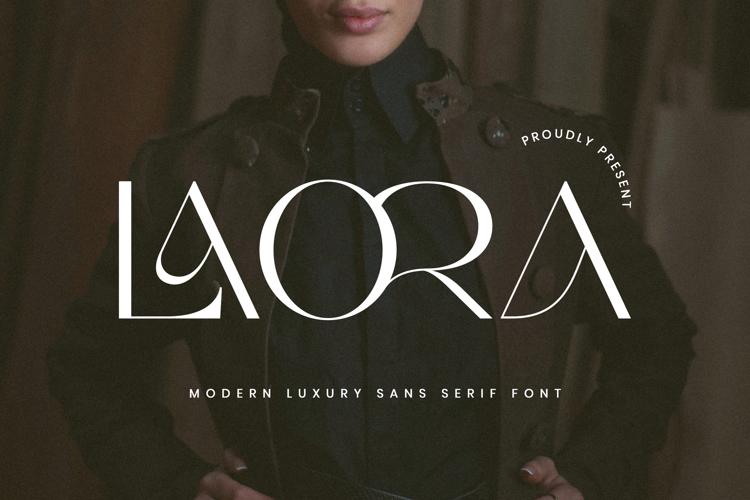
Laora
Laora Sans Font Typeface inspired by the famous minimalist logo perfect for the purposes of designing templates, brochures, videos, advertising branding, logos, invitation, layout design, elegant crafting, beauty design and other.